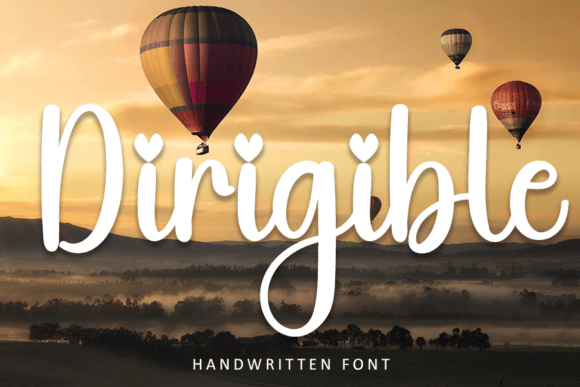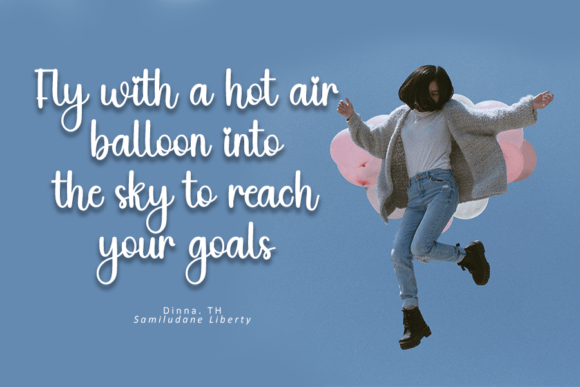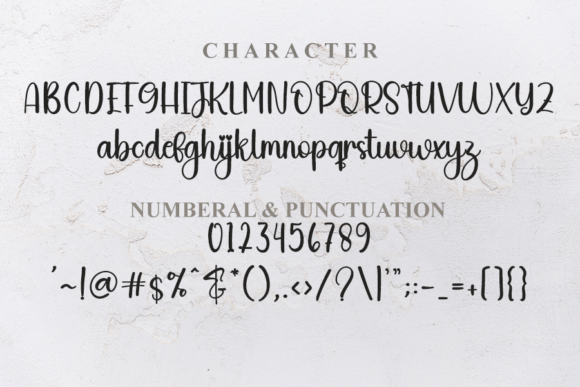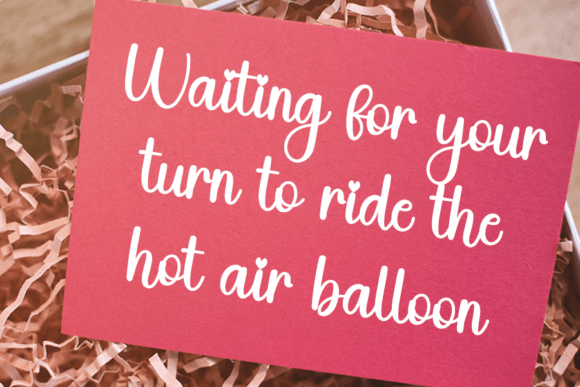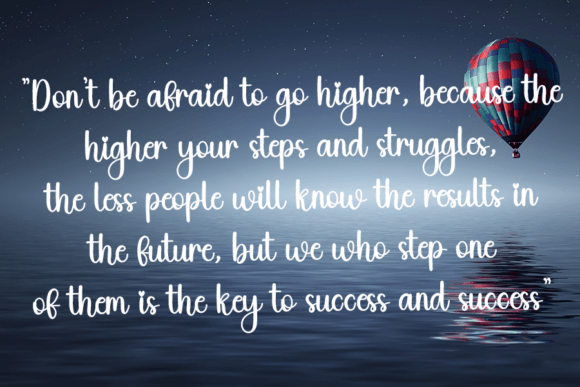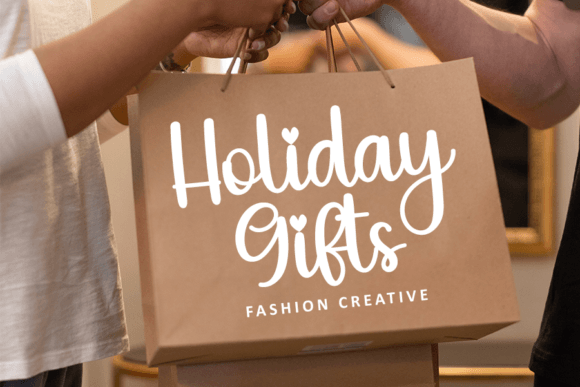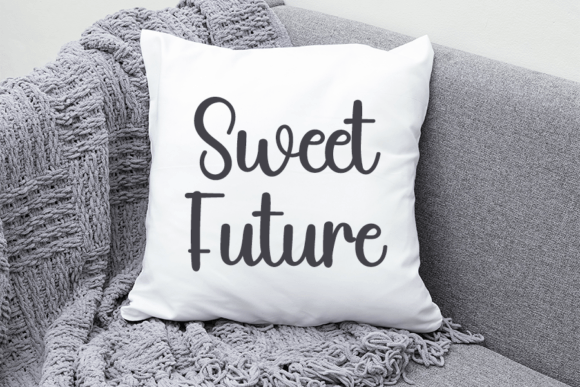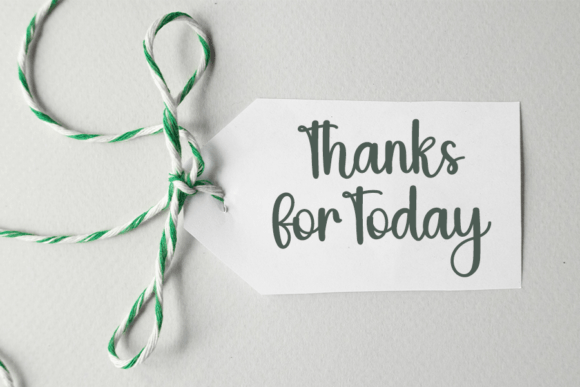
Dirigible Font
About Dirigible Font
**Dirigible: A Beautiful and Refined Script Font for Elegant Designs**
Dirigible is a font that embodies beauty and refinement, making it an ideal choice for a wide range of design projects. Whether you’re working on logos, branding, invitations, stationery, wedding designs, social media posts, or any creative endeavor, Dirigible exudes a sense of class, elegance, and modernity that elevates your designs.
The charm of Dirigible lies in its beautifully crafted script characters, meticulously designed to convey a sense of sophistication and grace. Each letter possesses a unique touch that enhances your designs with an air of elegance and style.
This font’s versatility ensures it can adapt to various design contexts. You can use it to create memorable logos and branding materials, infuse elegance into your invitations and wedding designs, add a touch of modernity to your stationery, craft engaging social media posts, design visually stunning posters, or employ it in any project where you want to convey a sense of class and refinement.
In summary, Dirigible is more than just a font; it’s a source of beauty and modern elegance that enhances your design projects. Its script characters make it the perfect choice for creating versatile and sophisticated typography. With Dirigible, your creative projects will shine with a distinct and refined presence. Choose Dirigible, and let your designs captivate with their beautiful, elegant, and modern script aesthetic.